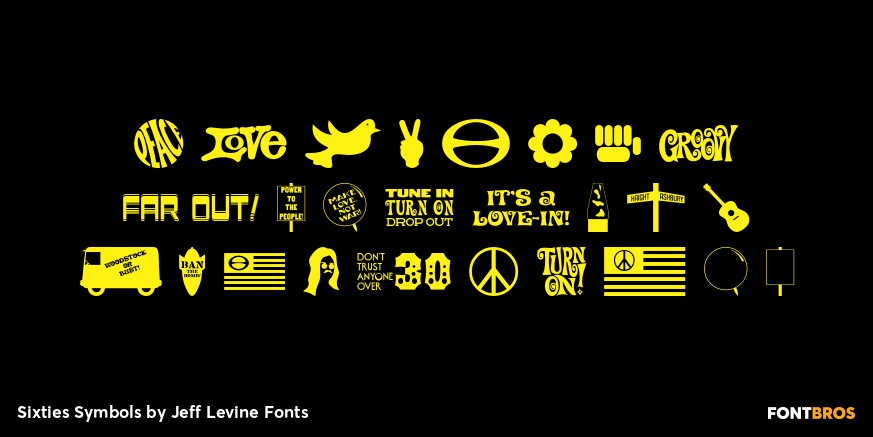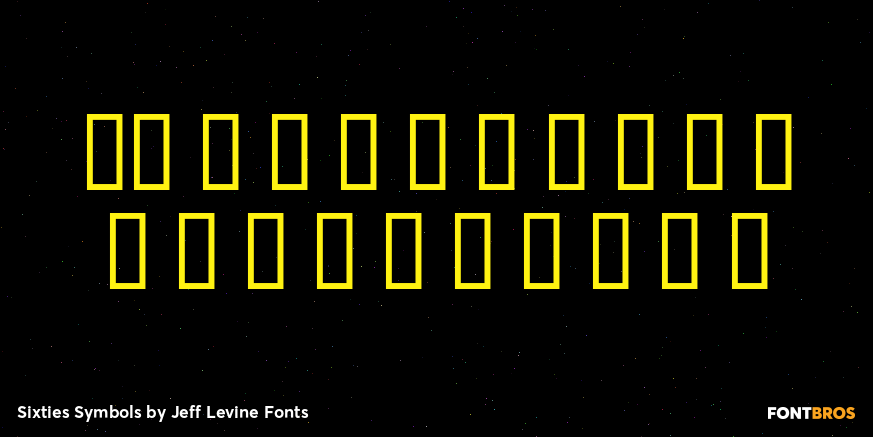
Sixties Symbols
The 1960s was the most tumultuous decade of the 20th century. Sixties Symbols JNL collects twenty-six icons and phrases from that time of change and unrest… including the peace symbol, a dove, a daisy…even the militant 'power fist' that signified rebellion against mainstream society.
There's also a blank lapel button on the Y/y keys and a blank protest poster on the Z/z keys for your own special message. For the more daring, the left and right brace Keys {and } have the 'one finger salute' the radical hippie factions displayed generously… Use that one with discretion!
Sixties Symbols JNL Regular by Jeff Levine Fonts